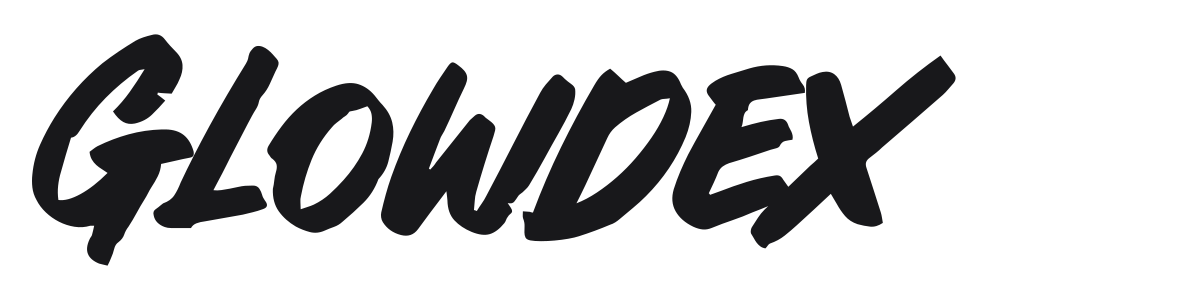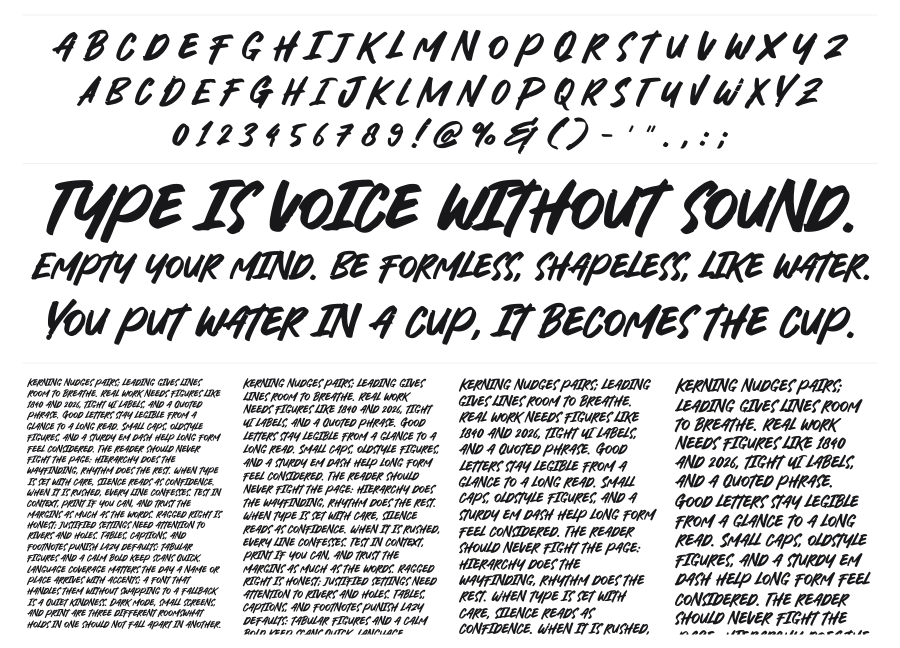
Glowdex
Glowdex is a bold brush script with a raw, street-level energy drawn from fast marker lettering and graffiti tradition. The heavy strokes carry visible texture and ink drag, giving each character an authentic handmade quality that digital tools rarely capture. Strong forward italic angle and muscular proportions make it a natural choice for posters, apparel graphics, and music branding.